These are the quick sketches. This was one of those projects when I drew the lettering and embellishments freehand in Illustrator. Just winged it. I had a general idea of what I wanted the lettering to look like and used the sketches for a rough template guide.
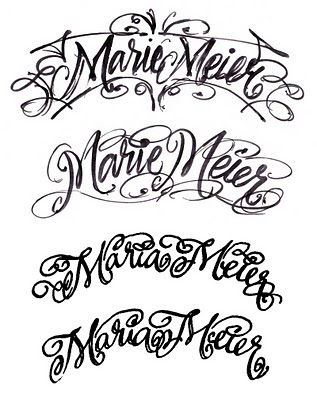
I drew the lettering for one version on a set of arced guidelines as I needed to produce it for use on apparel.
When drawing the embellishments I started out with smooth curved paths. The paths were offset and I moved the bezier points to change the thickness of the stroke.